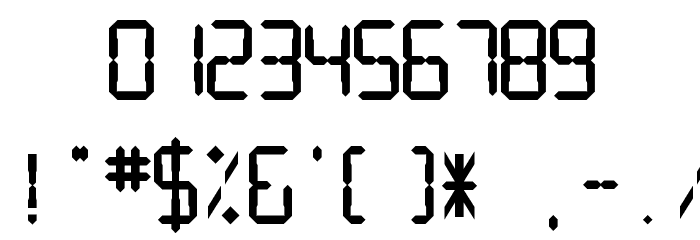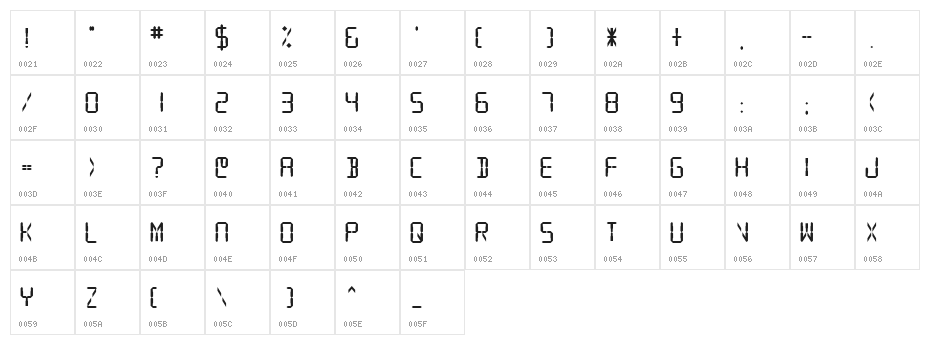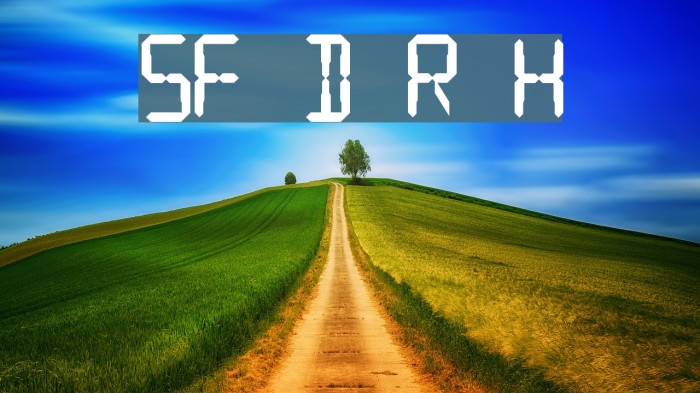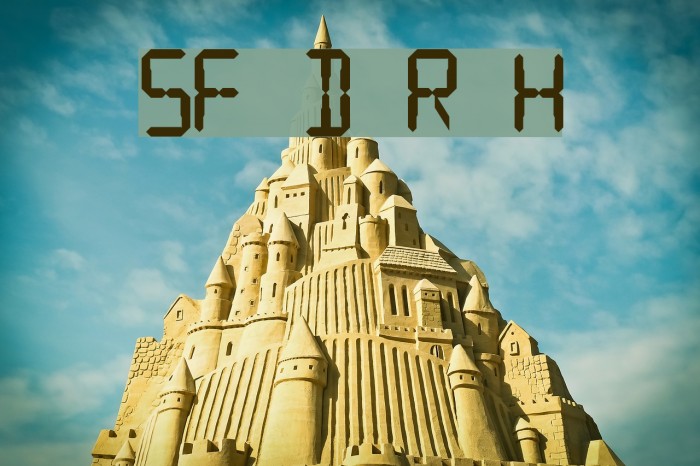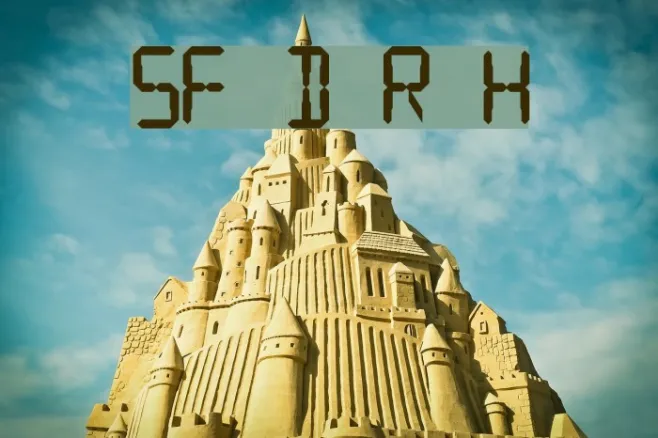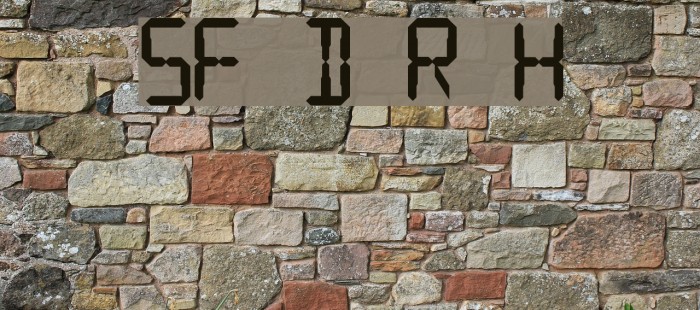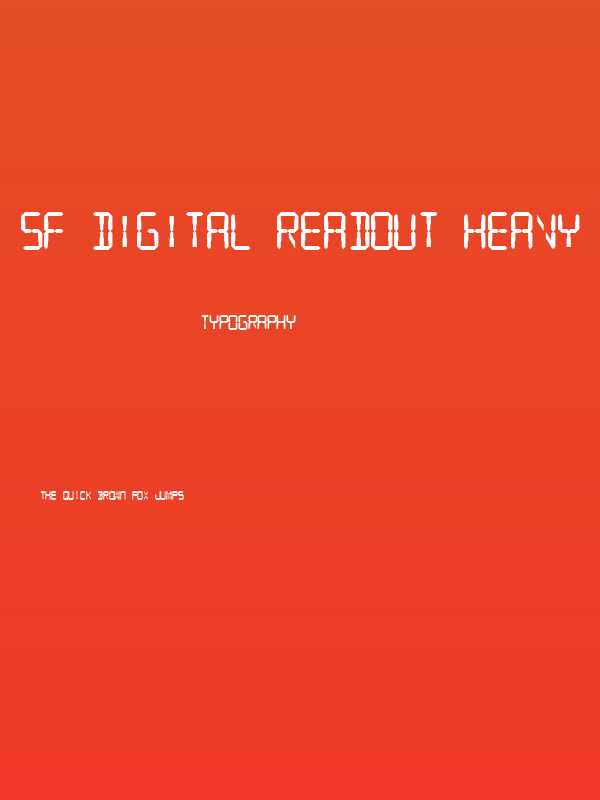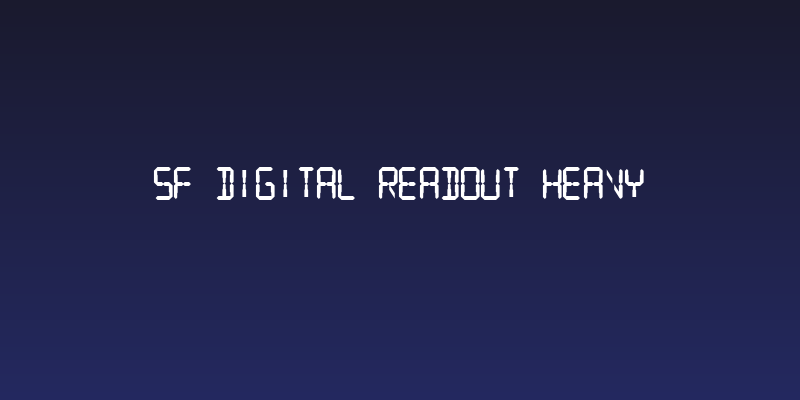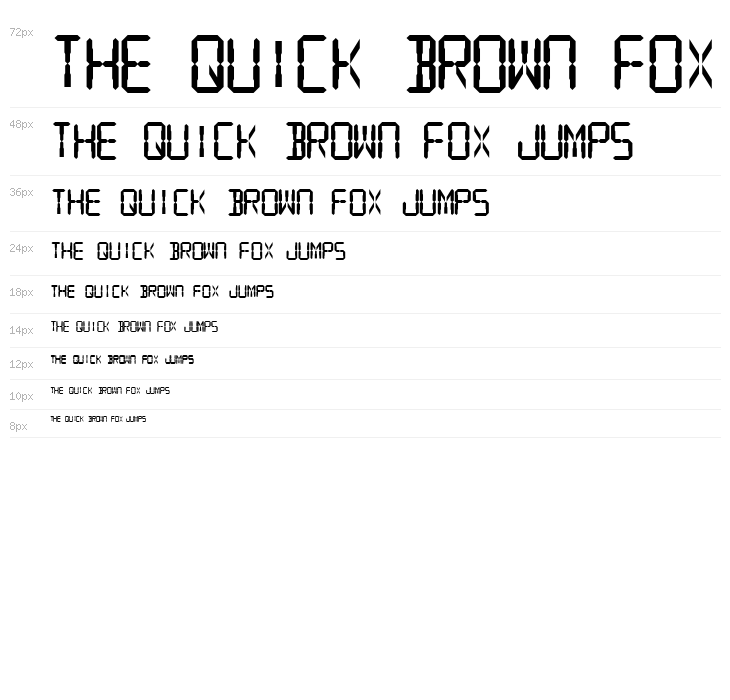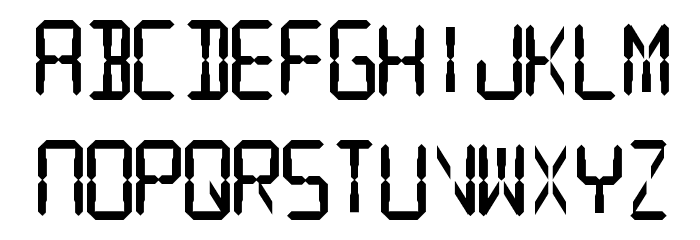
SF Digital Readout Heavy Font
SF Digital Readout Heavy Description
This font is reminiscent of digital displays, featuring a segmented, geometric style that mimics the appearance of LED or LCD screens. Each character is constructed with angular, straight lines, creating a mechanical and futuristic aesthetic. The uppercase and lowercase letters maintain a consistent height, contributing to a uniform and structured appearance. Numbers and special characters follow the same segmented design, enhancing the cohesive digital theme. The font's boldness and distinct character shapes make it highly legible, even at smaller sizes, while its unique style adds a modern, technological flair to any design.